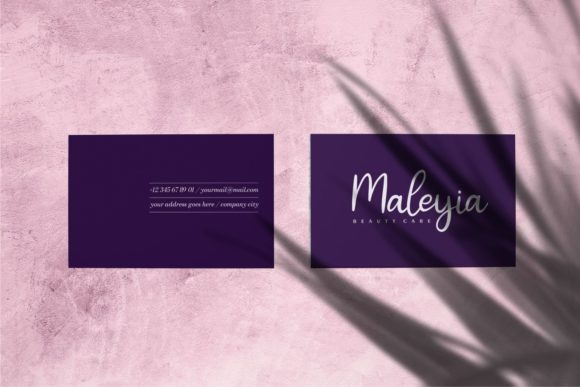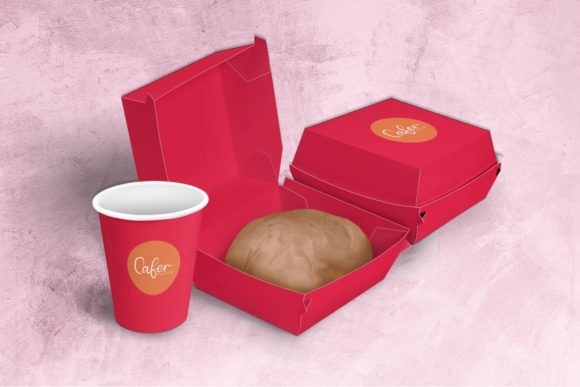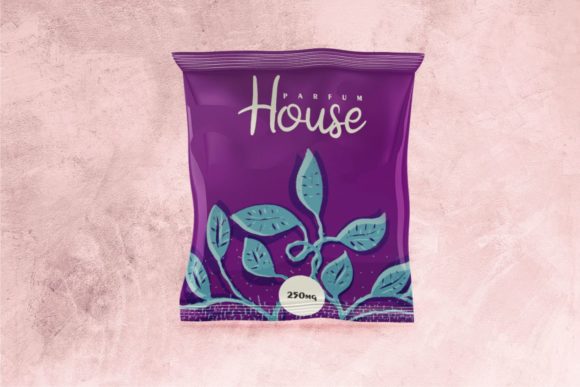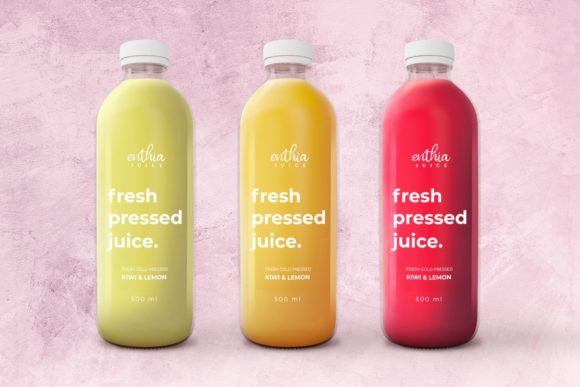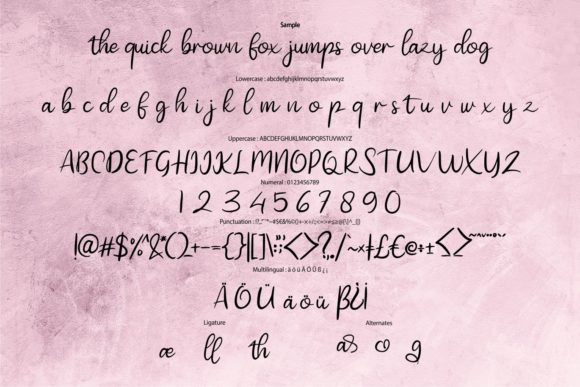
About Glatefa Font
Glatefa is a sweet and cursive handwritten font. This gentle font will look gorgeous on a variety of design ideas. It will add a joyful and romantic touch to each of your projects!